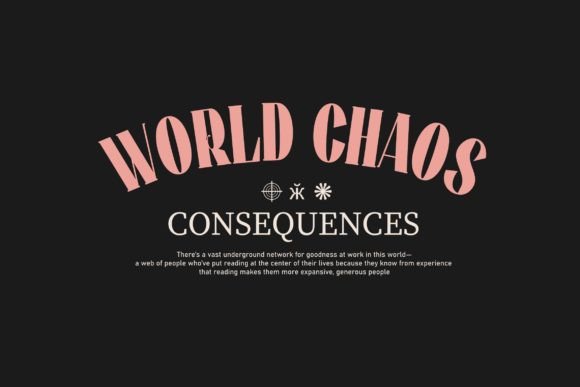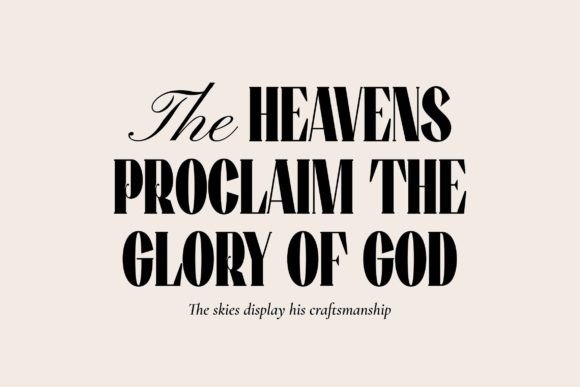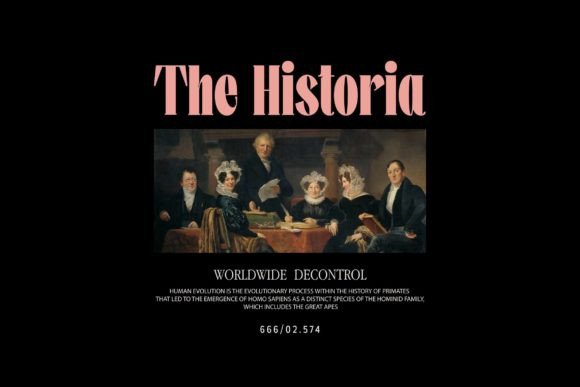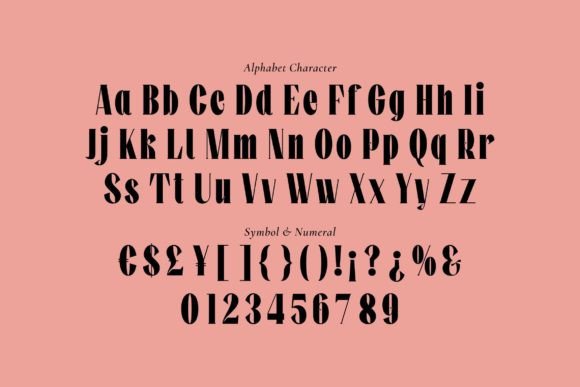
Introducing Growth Tracks Font: Elevate Your Designs with a Strong Aesthetic Serif
In the world of typography, a font can make or break a design. It’s the foundation upon which your creative vision is built. For designers and crafters looking for a font that exudes strength and aesthetic appeal, Growth Tracks Font is an exceptional choice. This beautiful serif font is designed to capture attention, making it perfect for a wide range of applications, from headlines and typography to logos and branding.
What Makes Growth Tracks Font Stand Out?
Growth Tracks Font is not just another serif font; it’s a statement piece. Its strong aesthetic presence is balanced with elegance, making it versatile enough for various design projects. Whether you’re working on a magazine, website, poster, or crafting a brand’s identity, this font provides the perfect blend of sophistication and readability.
Key Features of Growth Tracks Font
• Aesthetic Serif Design: The font boasts a classic serif design with a modern twist, ensuring your text stands out while maintaining readability.
• Attention-Grabbing: Its strong presence makes it ideal for headlines, titles, and any text that needs to capture the viewer’s attention.
• Versatile: Suitable for a myriad of applications including magazines, websites, posters, branding, and logos.
• PUA Encoded: Being PUA (Private Use Area) encoded, it offers free access to all its delightful glyphs and swashes, allowing for greater creative freedom.
Applications of Growth Tracks Font
The versatility of Growth Tracks Font is one of its most compelling features. Here are some of the many ways you can use this font to elevate your designs:
1. Headlines and Typography
For any designer, creating impactful headlines is crucial. Growth Tracks Font, with its strong aesthetic appeal, is perfect for headlines that need to stand out. Its unique serif design ensures that your typography leaves a lasting impression.
2. Magazines and Websites
In the realm of publishing, the choice of font can significantly affect the reader’s experience. Growth Tracks Font offers a sophisticated look that’s suitable for magazine articles, website content, and more. Its readability and aesthetic appeal make it a favorite among designers.
3. Posters and Titles
For posters and titles, a font needs to be attention-grabbing and convey the essence of the message quickly. Growth Tracks Font, with its strong presence, is ideal for such applications, ensuring your posters and titles make a significant impact.
4. Branding and Logos
Branding is about creating a memorable identity, and typography plays a crucial role in this. Growth Tracks Font can be used to create unique logos and brand identities that stand out. Its aesthetic serif design offers a professional look that’s sure to leave a lasting impression.
Working with Growth Tracks Font
As a PUA encoded font, Growth Tracks offers an added layer of flexibility. The PUA encoding allows designers to access a wide range of glyphs and swashes without any additional hassle. This means you have more creative freedom to experiment with different styles and designs, making your projects truly unique.
• Experiment with Swashes: Don’t hesitate to explore the various swashes and glyphs available. They can add a personal touch to your designs.
• Mix and Match: Try combining Growth Tracks Font with other fonts for a unique contrast that can add depth to your designs.
• Consider Your Audience: While the font is strong and attention-grabbing, ensure it aligns with the tone and audience of your project.
Font Name Growth Tracks Font
Author Fype Co.
Growth Tracks Font is more than just a typeface; it’s a tool for designers and crafters to create impactful, memorable designs. Its aesthetic serif design, combined with its versatility and PUA encoding, makes it an ideal choice for a wide range of projects. Whether you’re looking to make a statement with your headlines, create a sophisticated brand identity, or simply add a touch of elegance to your website or magazine, Growth Tracks Font is up to the task. Explore its capabilities and let it be the voice of your next big project.